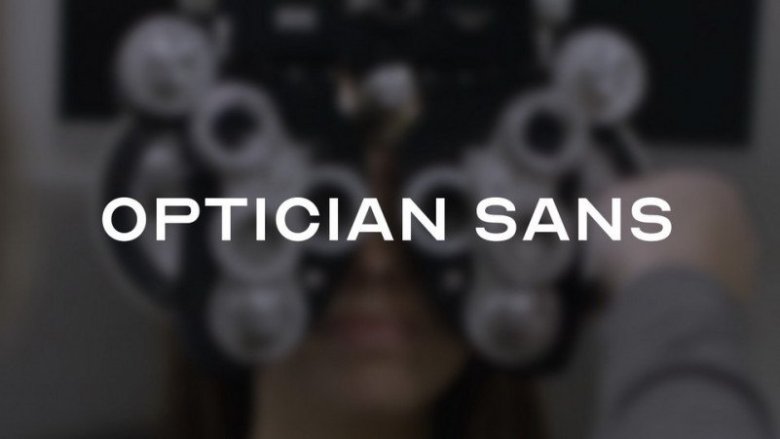
Optican Sans Font designed by Fábio Duarte Martins & Simen Schikulski is a extended custom type that brings both boldness and simplicity. It’s a free typeface based on the 10 historical optotype letters seen on millions of eye charts around the world, finalising the work that was started decades ago.
The universal optometrist eye charts have been around for decades and seen by millions of people worldwide. The first standardised chart was created by Hermann Snellen in the Netherlands in 1862, before Louise Sloan designed a new set in 1959. These letters make up the now universal chart for testing visual acuity, also known as the LogMAR chart, which was developed by National Vision Research Institute of Australia. But ever since 1959, they have consisted of only 10 letters.